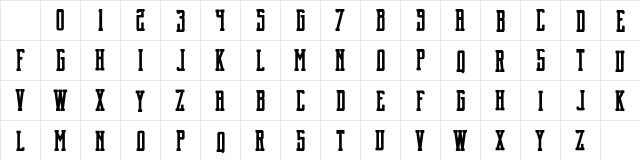
Complete Brch Vintage glyph index. Displaying only characters natively supported by Brch Vintage font.
Brch Vintage wears its vintage influences proudly, with letterforms that recall mid-century signage, classic packaging, and nostalgia-driven design.
Font Pairing: Combine Brch Vintage with a simple slab or neutral sans - period-accurate companions reinforce the vintage feel without competing for attention.
Pro Tip: Lean into Brch Vintage's period character by pairing it with aged paper textures, muted colour palettes, and vintage illustration styles.